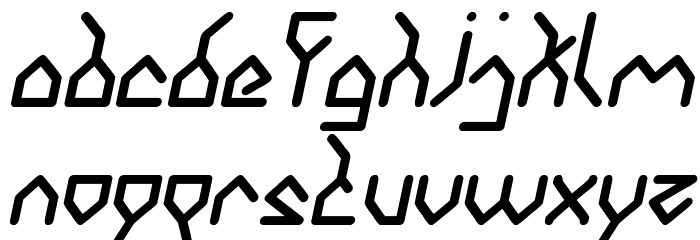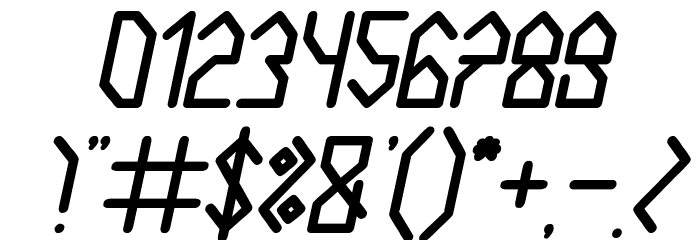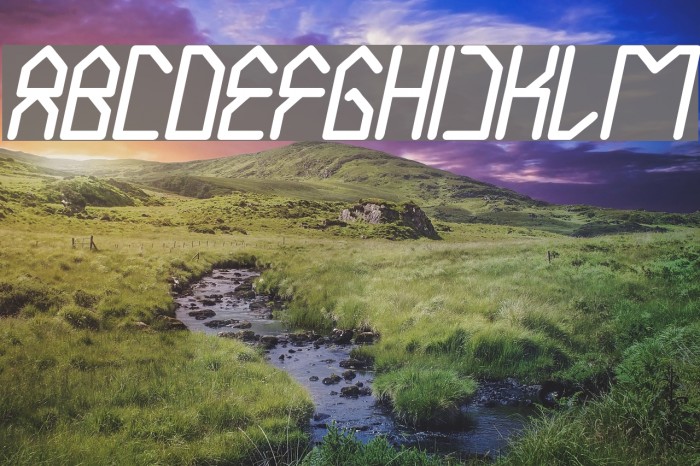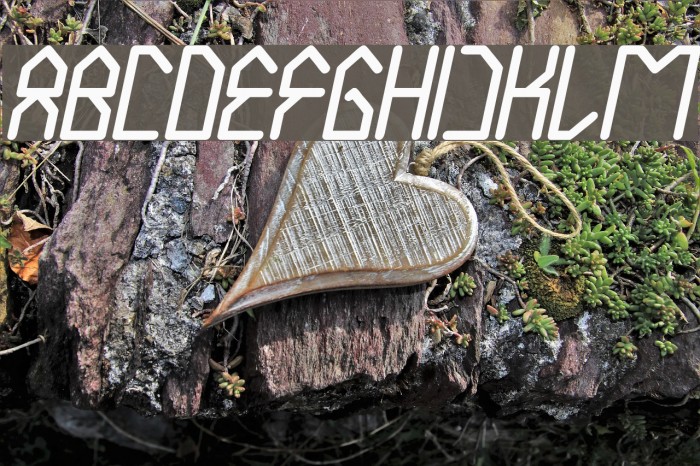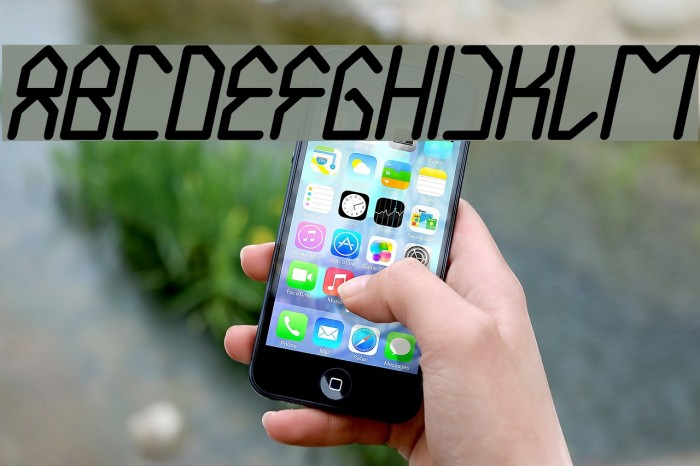
House Builder Italic Font
This font features a unique, angular design with a modern and architectural feel. The characters are constructed with straight lines and sharp angles, giving it a geometric and structured appearance. The italic style adds a dynamic and forward-leaning aspect, enhancing its contemporary look. Each letter maintains a consistent thickness, contributing to a uniform and cohesive aesthetic. The font includes a full set of uppercase and lowercase letters, numbers, and a variety of special characters, making it versatile for different design needs.
A modern, angular italic font with a geometric and architectural style.
- Proposed Projects: Ideal for architectural branding, modern posters, tech-related designs, and innovative product packaging.